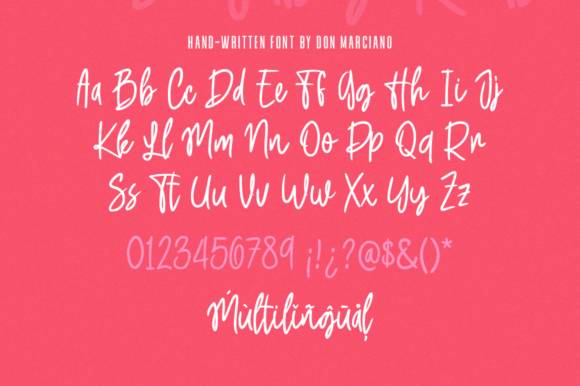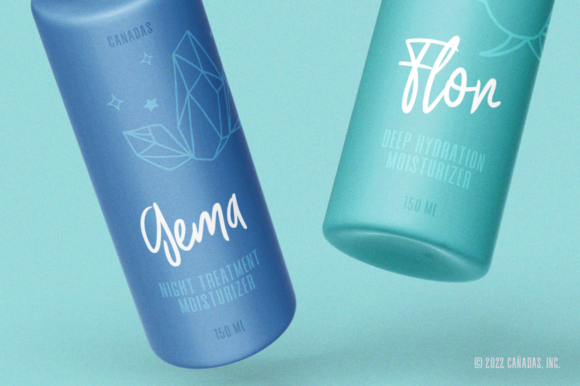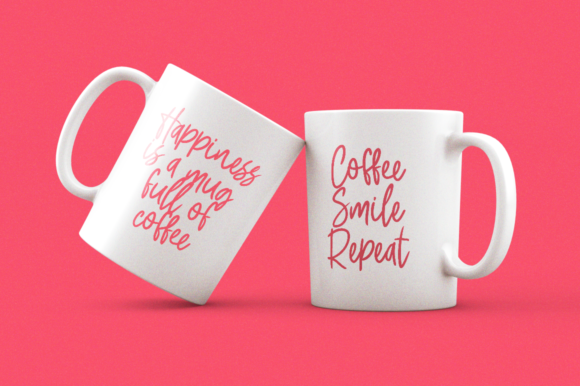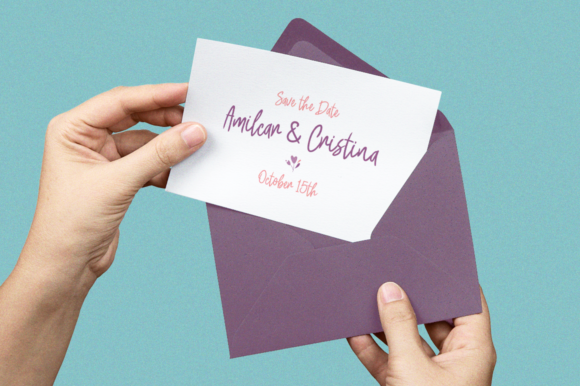
Xiomy Font
About Xiomy Font
Xiomy is a casual and fashionable script font. It is perfect for any branding project such as logos, t-shirt printing, creative products, and more. It will look extraordinary in a variety of contexts.